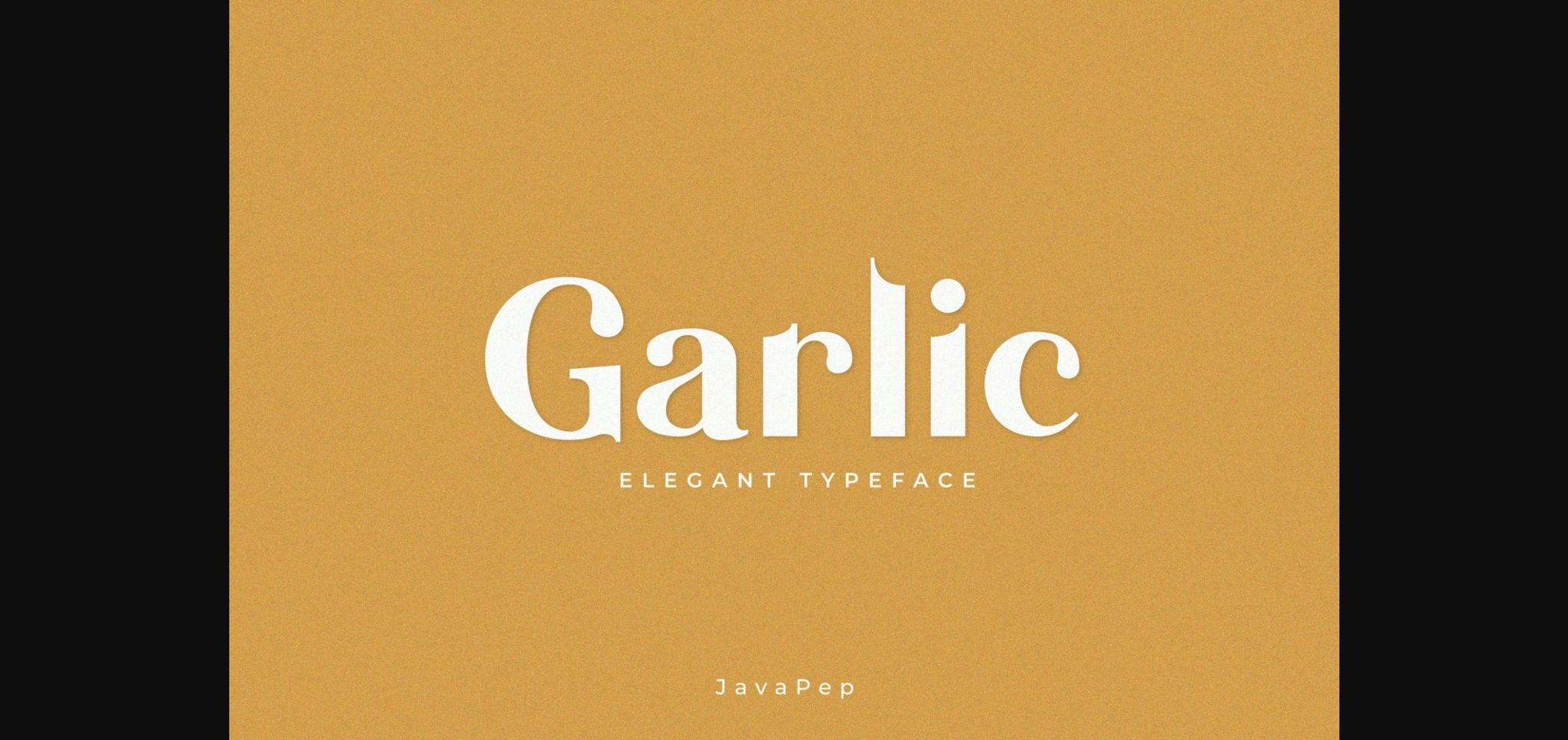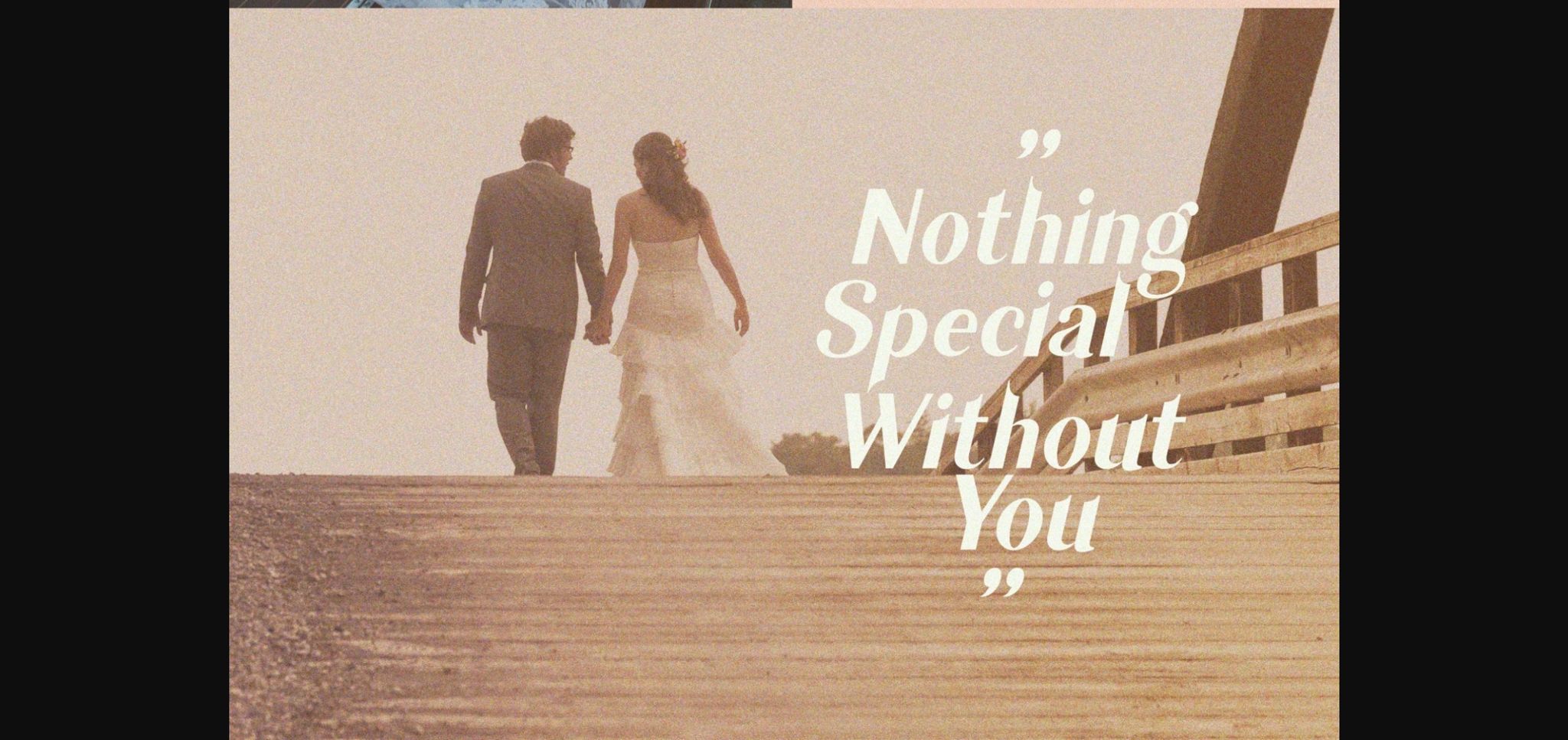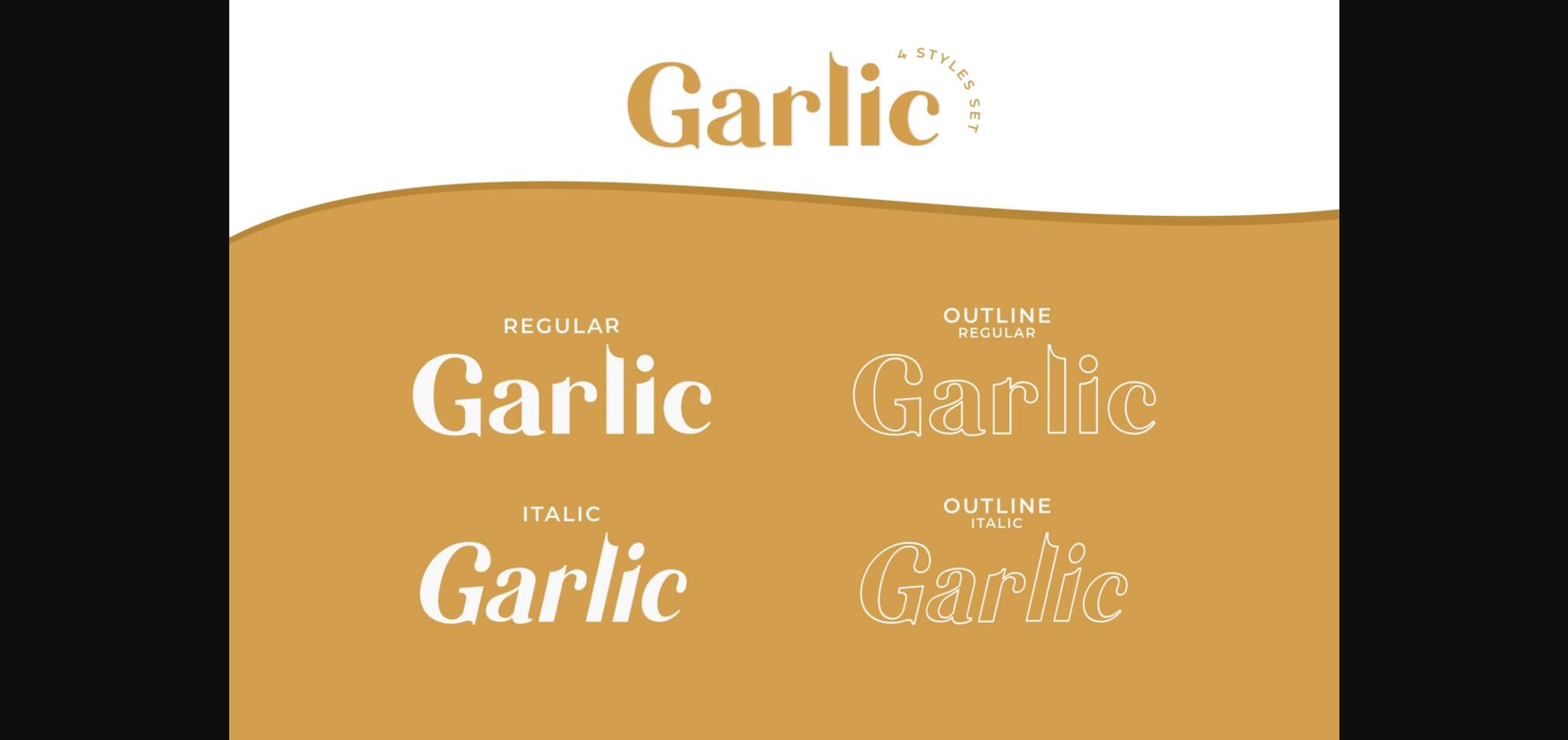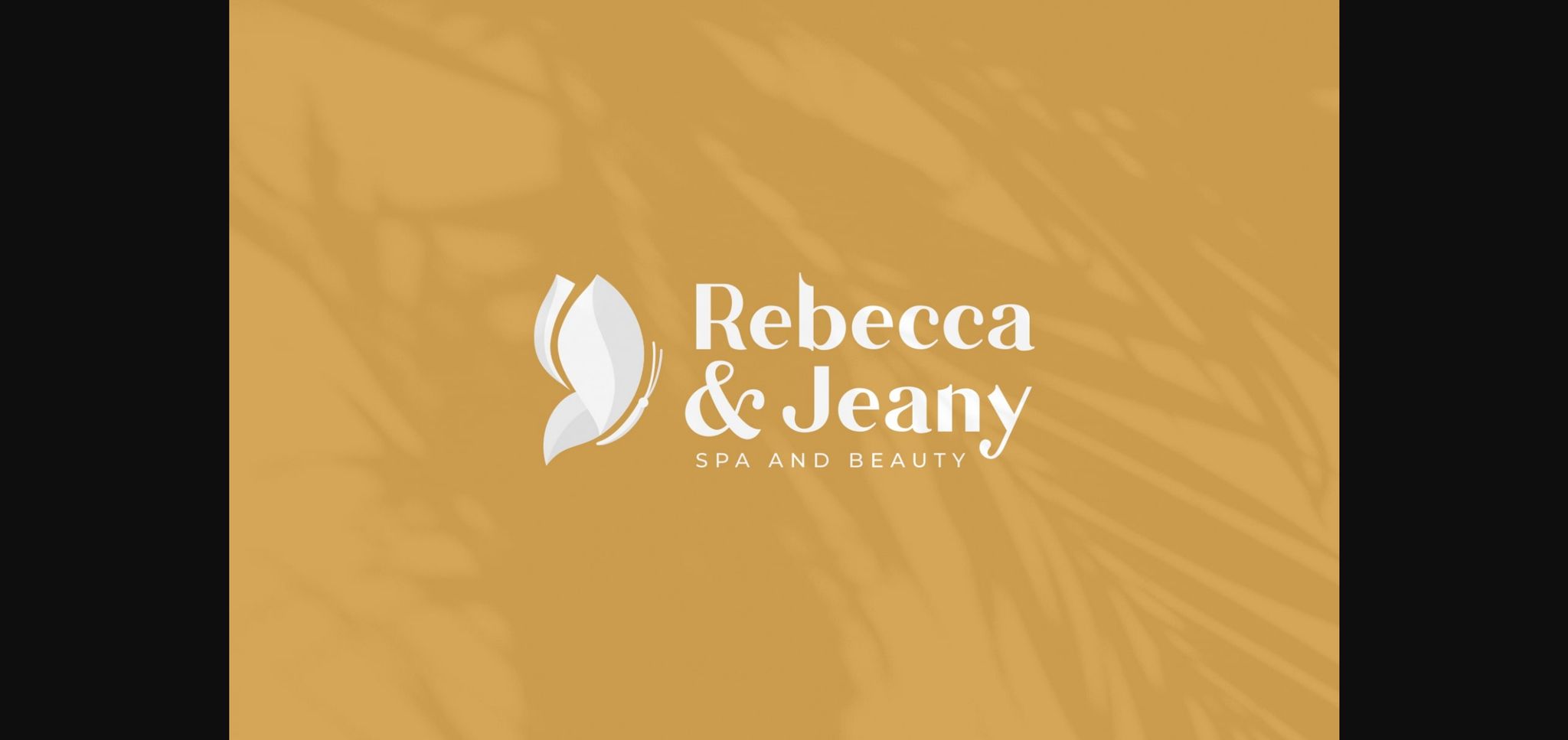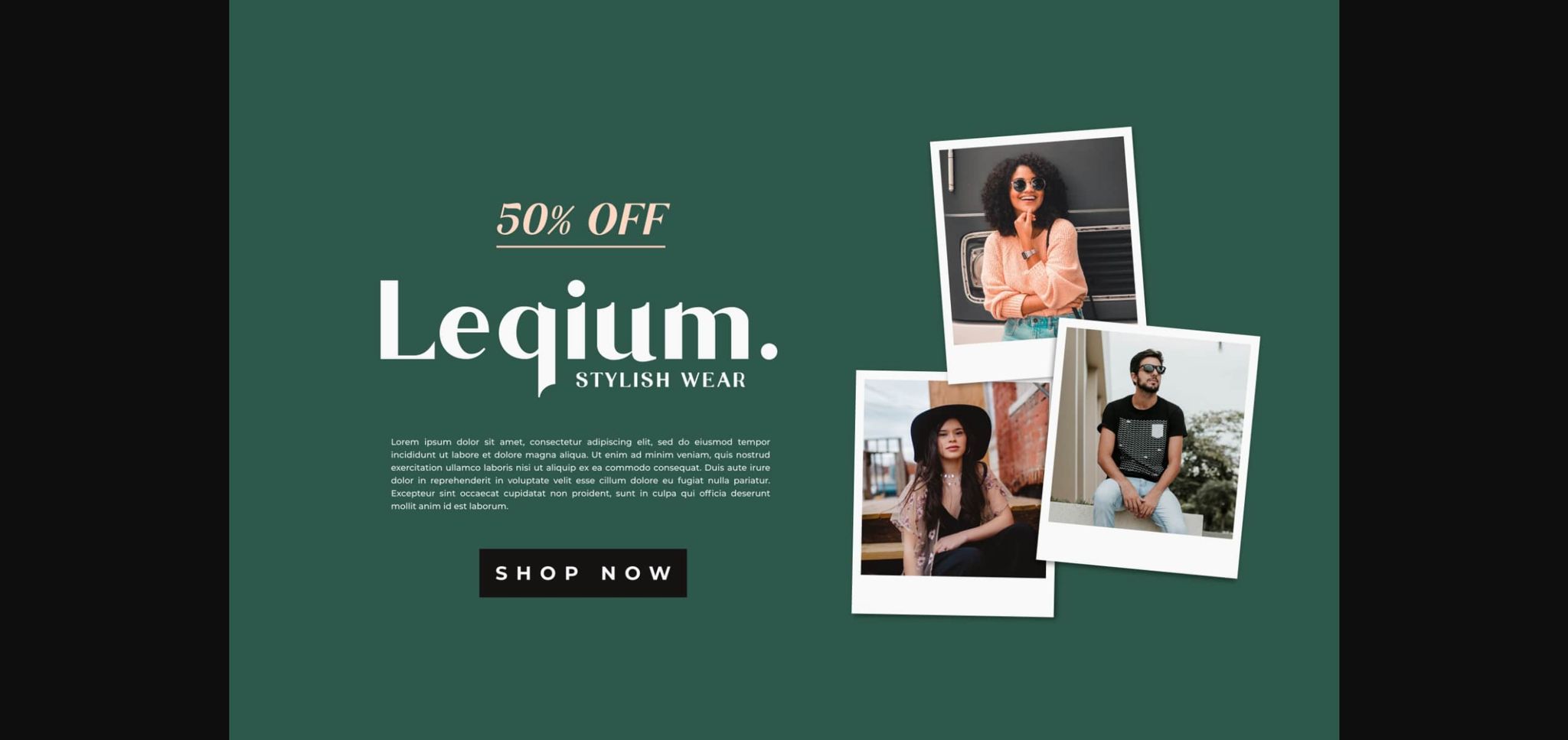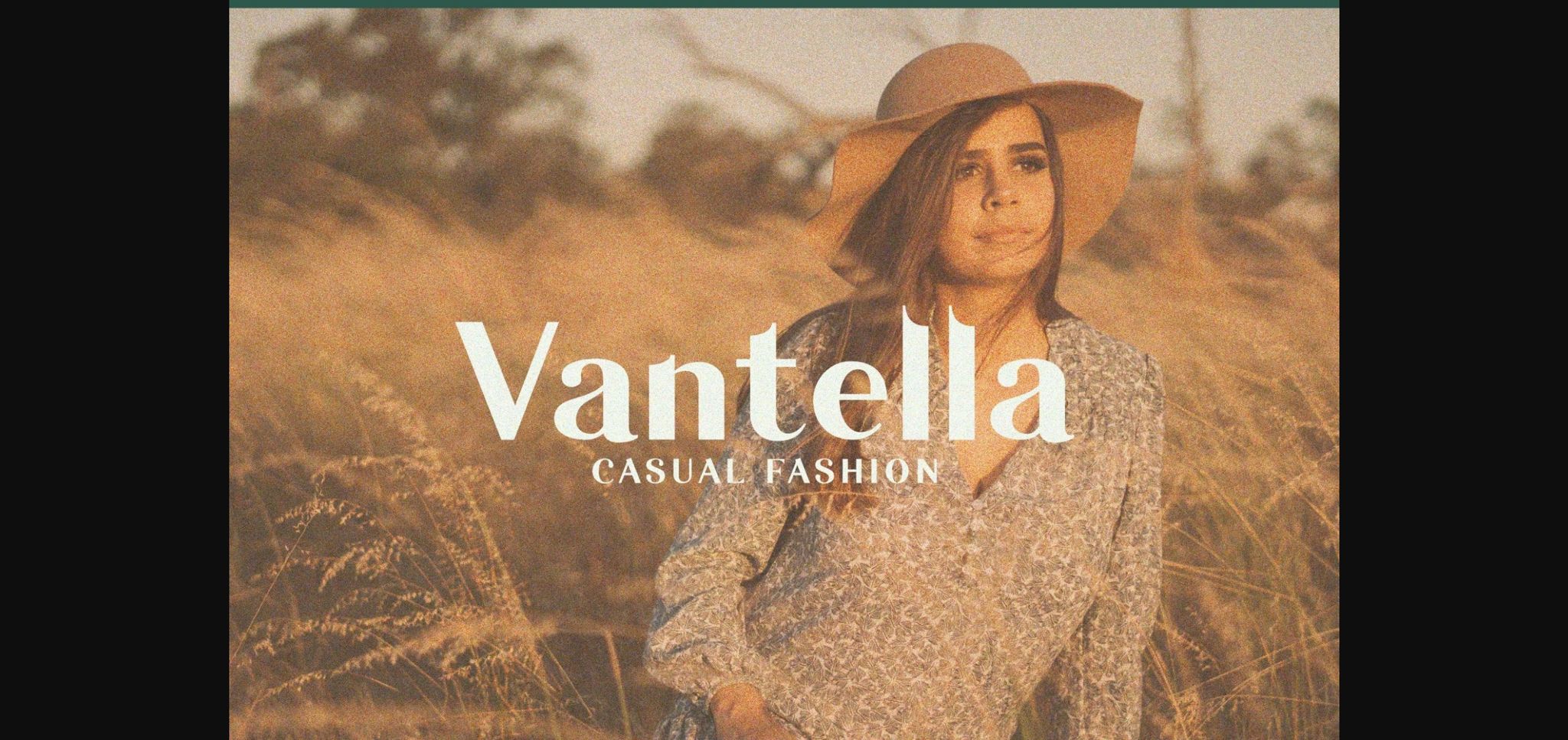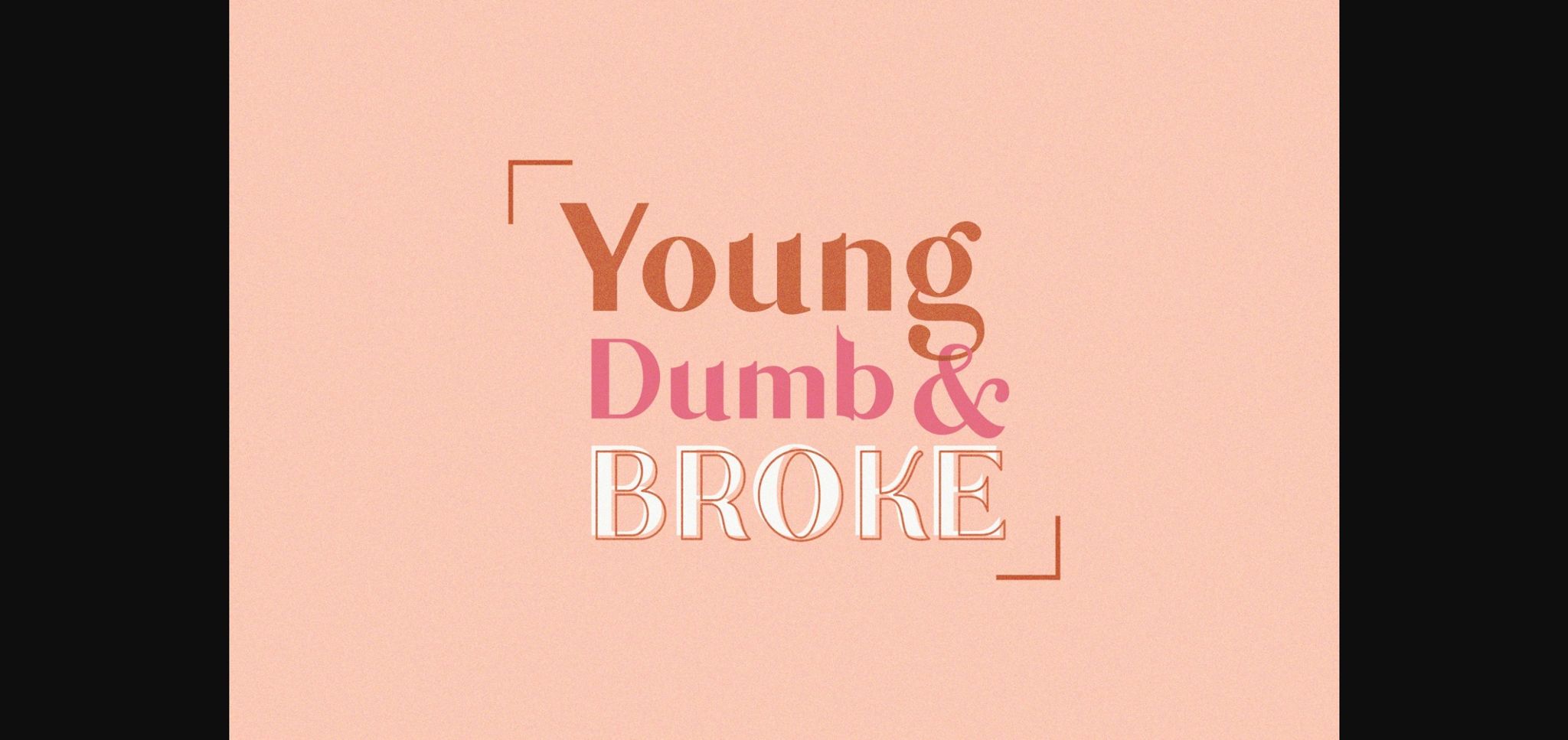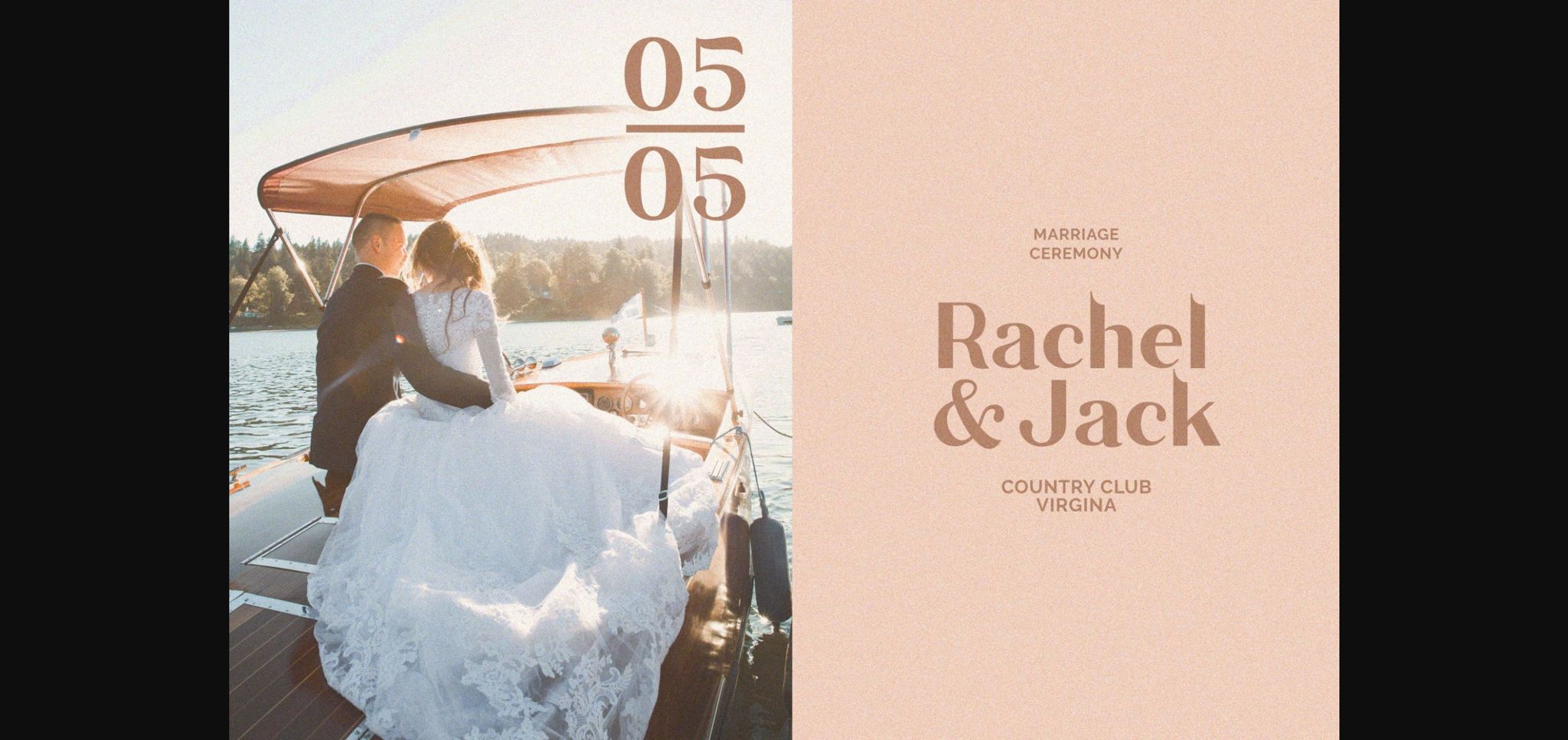
HomeSans Serif FontsGarlic Font Sans Serif Fonts Garlic Font FacebookXPinterestWhatsApp 1 of 11 ... Garlic Font Poster 2... Garlic Font Poster 3... Garlic Font Poster 4... Garlic Font Poster 5... Garlic Font Poster 6... Garlic Font Poster 7... Garlic Font Poster 8... Garlic Font Poster 9... Garlic Font Poster 10... Garlic Font Poster 11... About Garlic Font Garlic is a simple and elegant sans serif font with an undeniably clean feel. With its neat and beautiful arrangement of letters, this typeface will look outstanding in both formal and non-formal designs. DOWNLOAD NOW People also explored Shamper Font Better Font Lazy Font Rinjani Font Santa Clarita Dayana Font Feel My Heart Font Hearts Handmade Font Kawaii Kyarakuta Font 294 0 TagsGarlicGarlic Font Previous articleYolissa FontNext articleAndallan Font LEAVE A REPLY Cancel reply Comment: Please enter your comment! Name:* Please enter your name here Email:* You have entered an incorrect email address! Please enter your email address here Website: Save my name, email, and website in this browser for the next time I comment. Personal Use Free Hubbies Personal Use Free Read more about this font Yesstea Personal Use Free Read more about this font Drip October Font Personal Use Free Read more about this font Nuku Nuku Personal Use Free Read more about this font BLOG Using Fonts in Digital Marketing: Tips to Strengthen Your Brand Identity In the realm of digital marketing, every visual element plays a crucial role in shaping a brand's identity, and fonts are no exception. The... Elegant Wedding Invitation Fonts – Handwritten & Script Fonts Exploring Font Trends Top 10 Handwritten Fonts That Elevate Your Designs